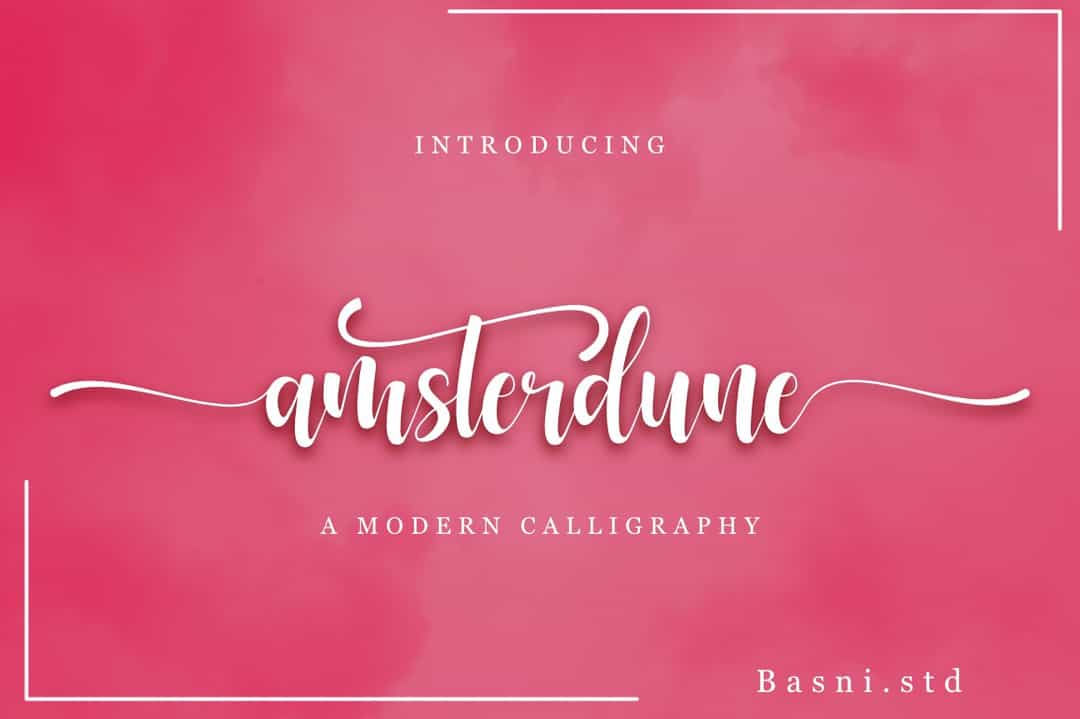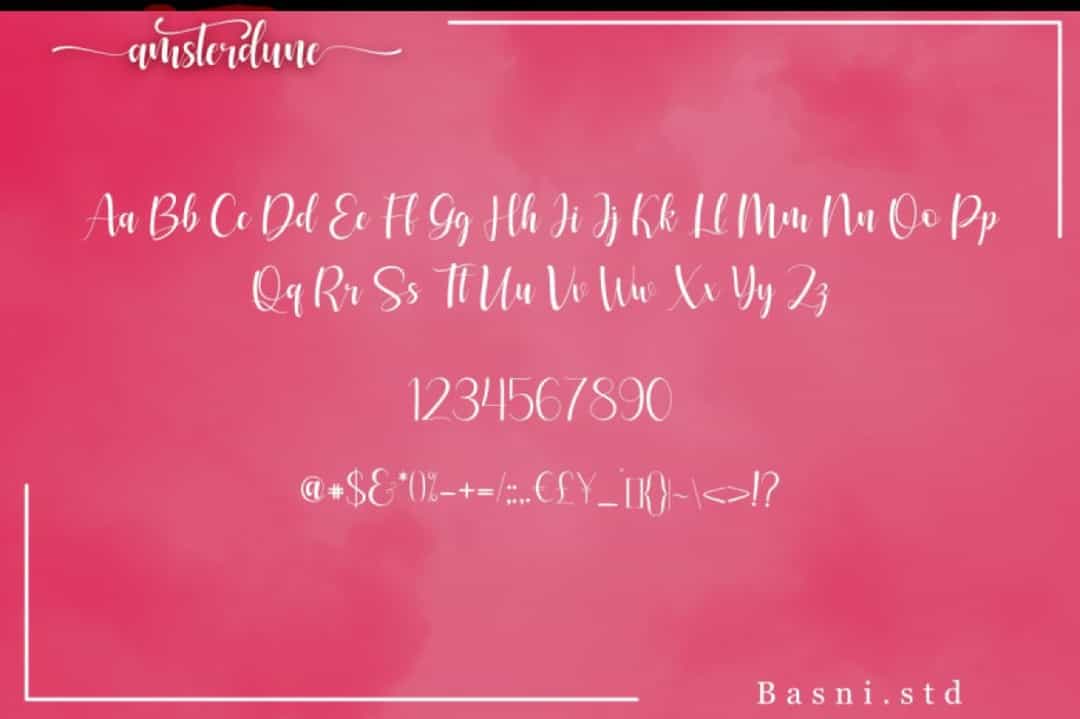
Amsterdune Calligraphy Font is ideal for branding purposes, websites, invitations and editorial design projects. This font comes complete with upper and lower case letters as well as support for multiple languages punctuation binding and final/initial swashes; all accessible via software compatible with OpenType technology.